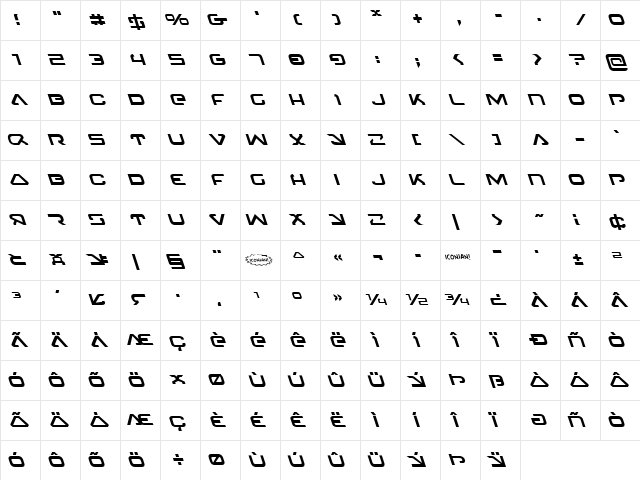
4114 Blaster Leftalic Italic
Design Context for 4114 Blaster Leftalic Typeface
4114 Blaster Leftalic is a composed and adaptable typeface that performs quietly and consistently across a wide range of design contexts. Its italic angle brings a sense of urgency and motion to the letterforms.
Pro Tip: Try 4114 Blaster Leftalic for annotation and caption copy alongside an upright companion — the contrast in angle creates a dynamic but ordered typographic system.